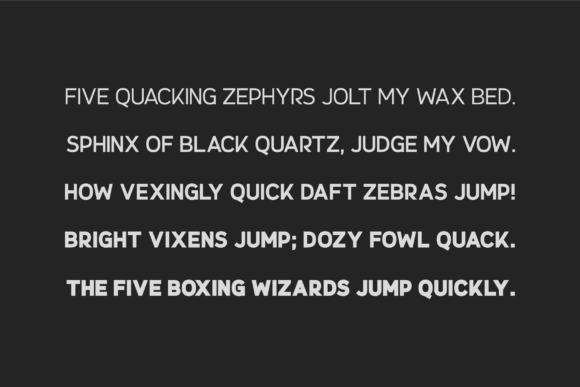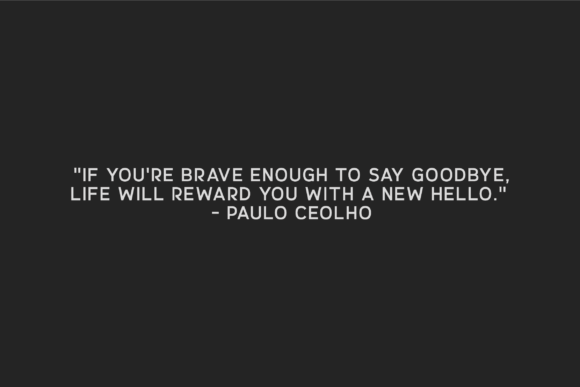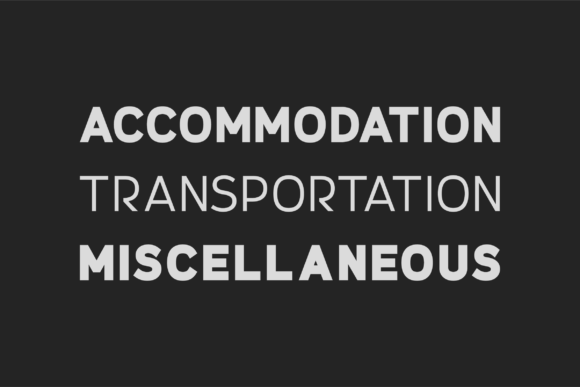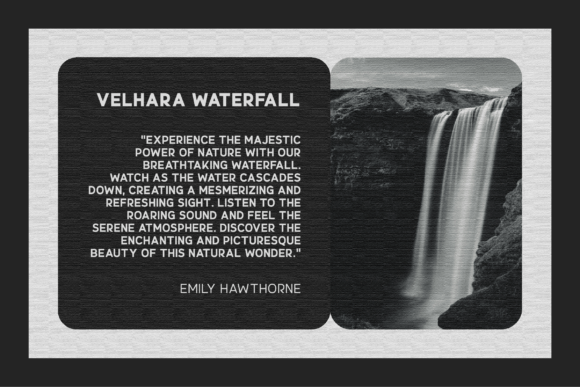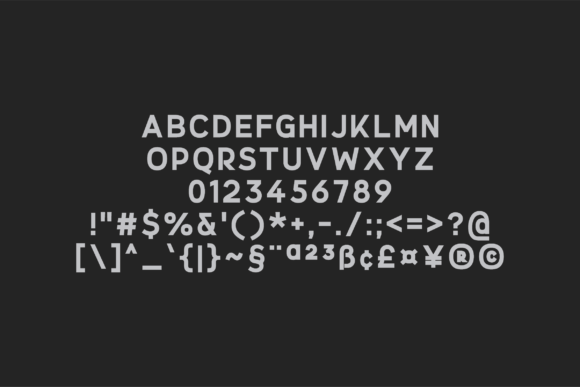
Introducing Converta Font: Elevate Your Designs with Timeless Elegance
In the world of typography, a well-crafted font can make all the difference in elevating your design to new heights. Converta Font is an exquisite sans serif font that embodies the perfect balance of sophistication and simplicity, making it an ideal choice for designers and crafters looking to add a touch of timeless charm to their projects.
The Art of Sans Serif Typography
Converta Font boasts a sleek and modern sans serif design, carefully crafted with utmost precision to ensure that every letterform exudes elegance and refinement. The font’s clean lines, subtle curves, and balanced proportions create a visually appealing aesthetic that is both versatile and sophisticated.
Whether you’re working on a magazine layout, logo design, or film poster, Converta Font is the perfect companion to help you achieve your creative vision. Its exceptional legibility and clarity make it an excellent choice for body text, while its stylish and refined appearance ensures that your headings and titles will stand out.
Key Features of Converta Font
- Exquisite sans serif design: Converta Font features a beautifully crafted sans serif design that is both modern and timeless.
- Exceptional legibility: The font’s clean lines and balanced proportions ensure that your text is easy to read, even at small sizes.
- Versatile and adaptable: Converta Font is suitable for a wide range of design applications, from print to digital media.
- Timeless charm: The font’s sophisticated and refined appearance ensures that your designs will exude a sense of elegance and refinement.
Why Choose Converta Font?
In a world where design trends come and go, Converta Font offers a refreshing alternative to more traditional or overused fonts. Its unique blend of sophistication and simplicity ensures that your designs will stand out from the crowd, while its exceptional legibility and versatility make it an excellent choice for a wide range of applications.
Design Inspiration with Converta Font
To give you a better sense of the design possibilities with Converta Font, here are a few inspiring examples of how you can use this beautiful font in your projects:
- Magazine layouts: Use Converta Font as a body text font or for headings to add a touch of sophistication to your magazine layouts.
- Logo design: Converta Font’s clean lines and refined appearance make it an excellent choice for logo design, particularly for brands that want to convey a sense of elegance and refinement.
- Film posters: Add a touch of glamour to your film posters with Converta Font, perfect for titles, credits, or taglines.
Converta Font is an exquisite sans serif font that offers the perfect balance of sophistication and simplicity, making it an ideal choice for designers and crafters looking to elevate their designs. With its exceptional legibility, versatility, and timeless charm, Converta Font is sure to become a staple in your font library. Discover the power of Converta Font and take your designs to new heights.